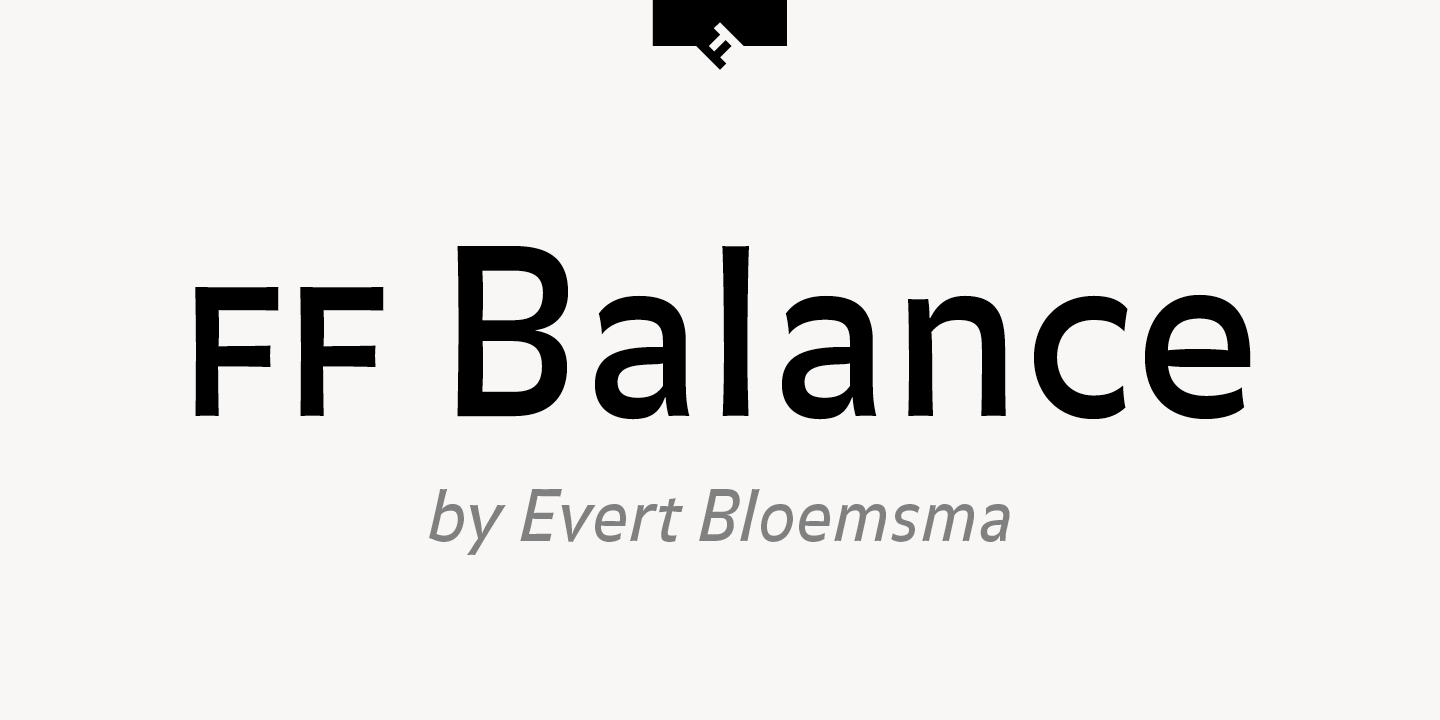
FF Balance Font is ideal for wellness center branding, mindfulness app interfaces, sustainable lifestyle magazines, holistic health practices, yoga studio materials, work-life balance consulting, mental health awareness campaigns, and harmonious design applications.
This font is exciting because it achieves perfect typographic equilibrium with harmoniously balanced letterforms that embody the principles of visual and emotional balance in design communication. The FF Balance Font captures the essence of inner peace and mindful living, transforming ordinary text into centered expressions that promote well-being, stability, and the kind of thoughtful design that supports mental clarity and emotional harmony.
The FF Balance Font family includes harmony-focused variations such as Light, Regular, Medium, Bold, Italic, Zen, Condensed, and Extended versions, providing wellness designers with comprehensive tools to create balanced typography that promotes peace, stability, and mindful communication across all wellness applications and therapeutic communications.